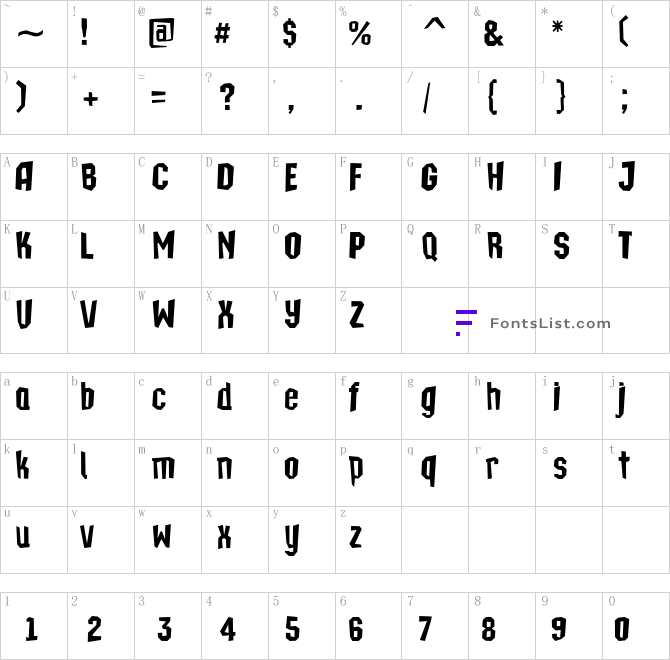
- Font Name:a_TechnicsBrk
a_TechnicsBrk-DemiBold.ttf is a very beautiful artistic font, a_TechnicsBrk-DemiBold.ttf is widely used in the design and printing of various books and pictures,a_TechnicsBrk-DemiBold.ttf has a strong visual impact,a_TechnicsBrk-DemiBold.ttf is a commonly used font in newspapers, magazines and books, and is used in posters, e-commerce Poster design, store design, logo design, font design and other fields.a_TechnicsBrk-DemiBold.